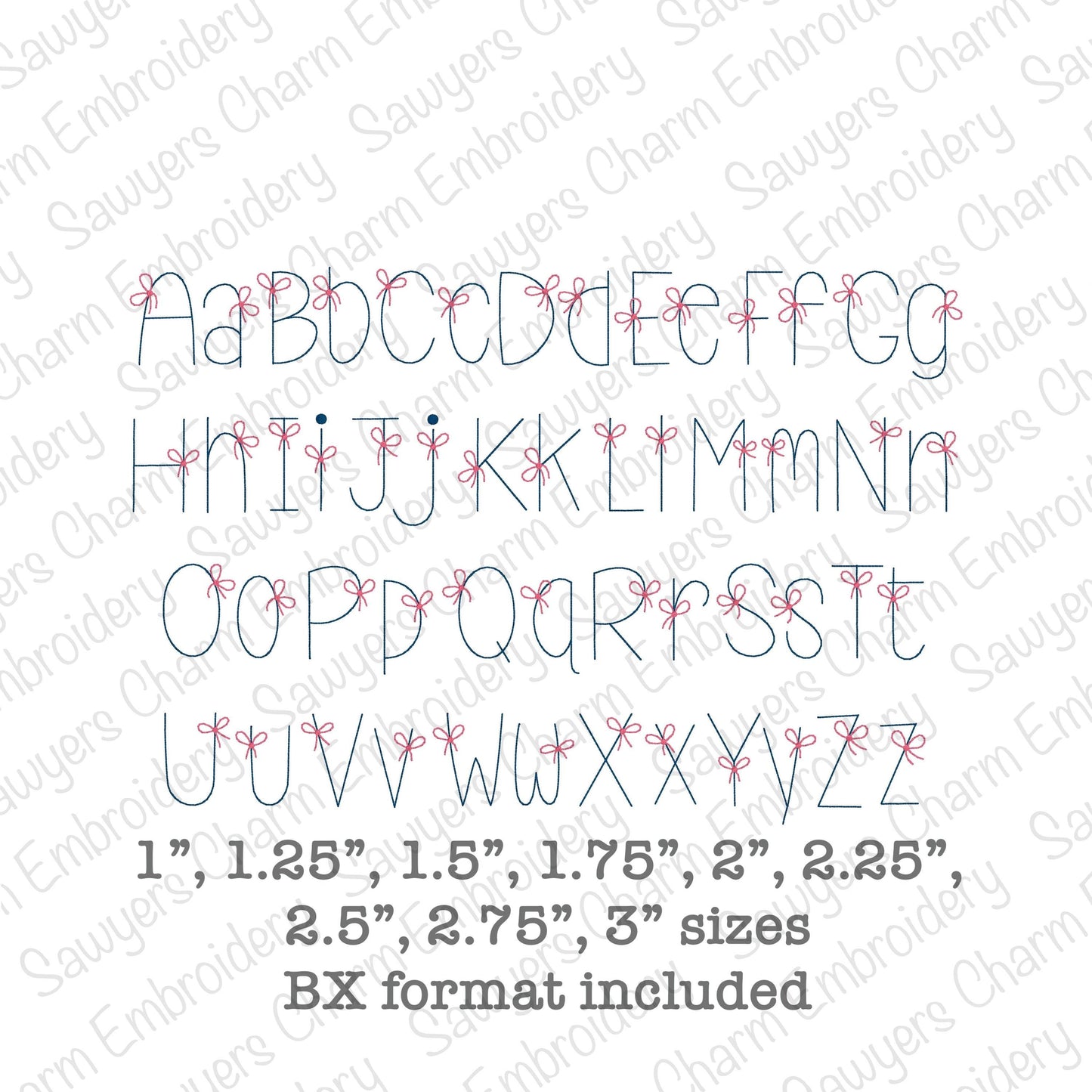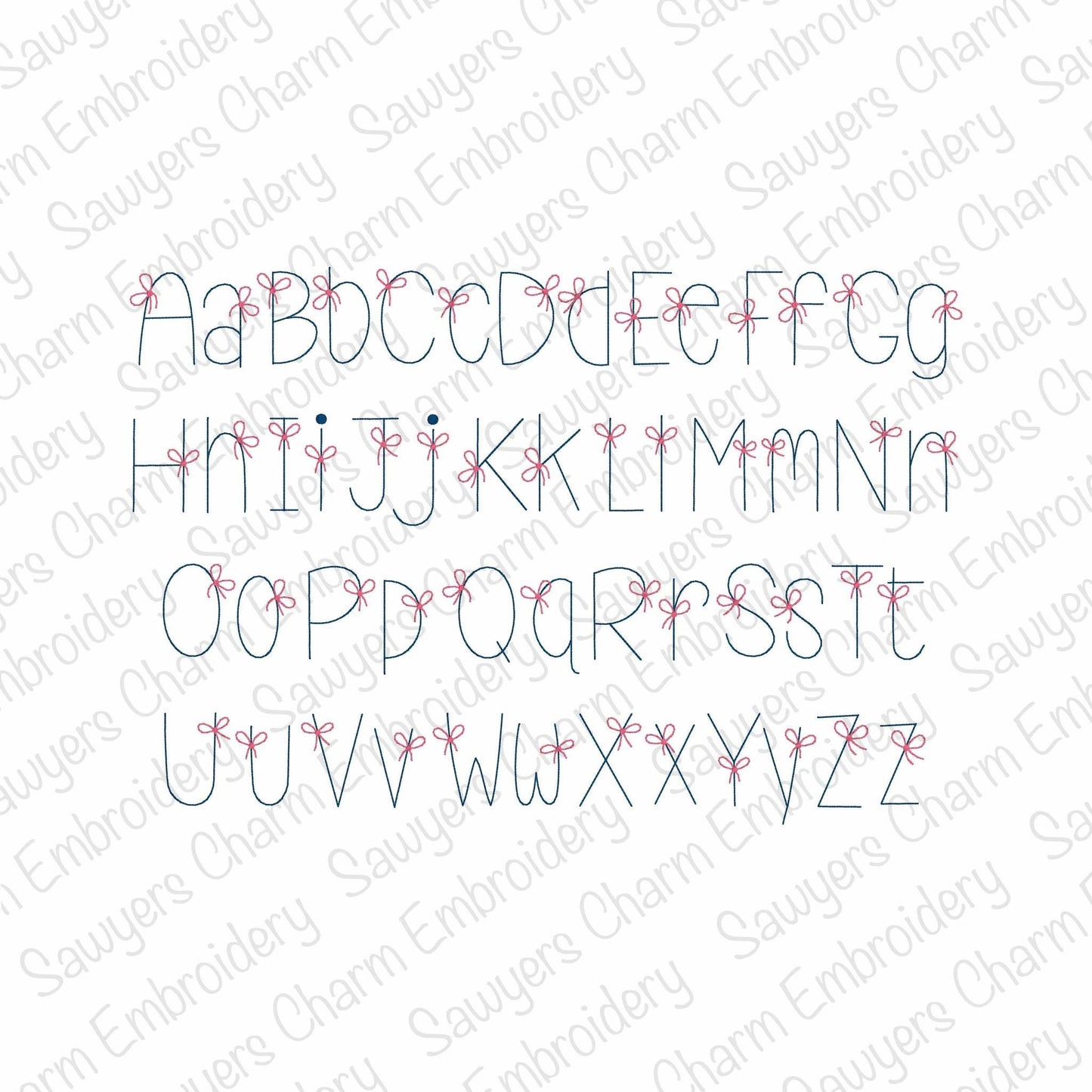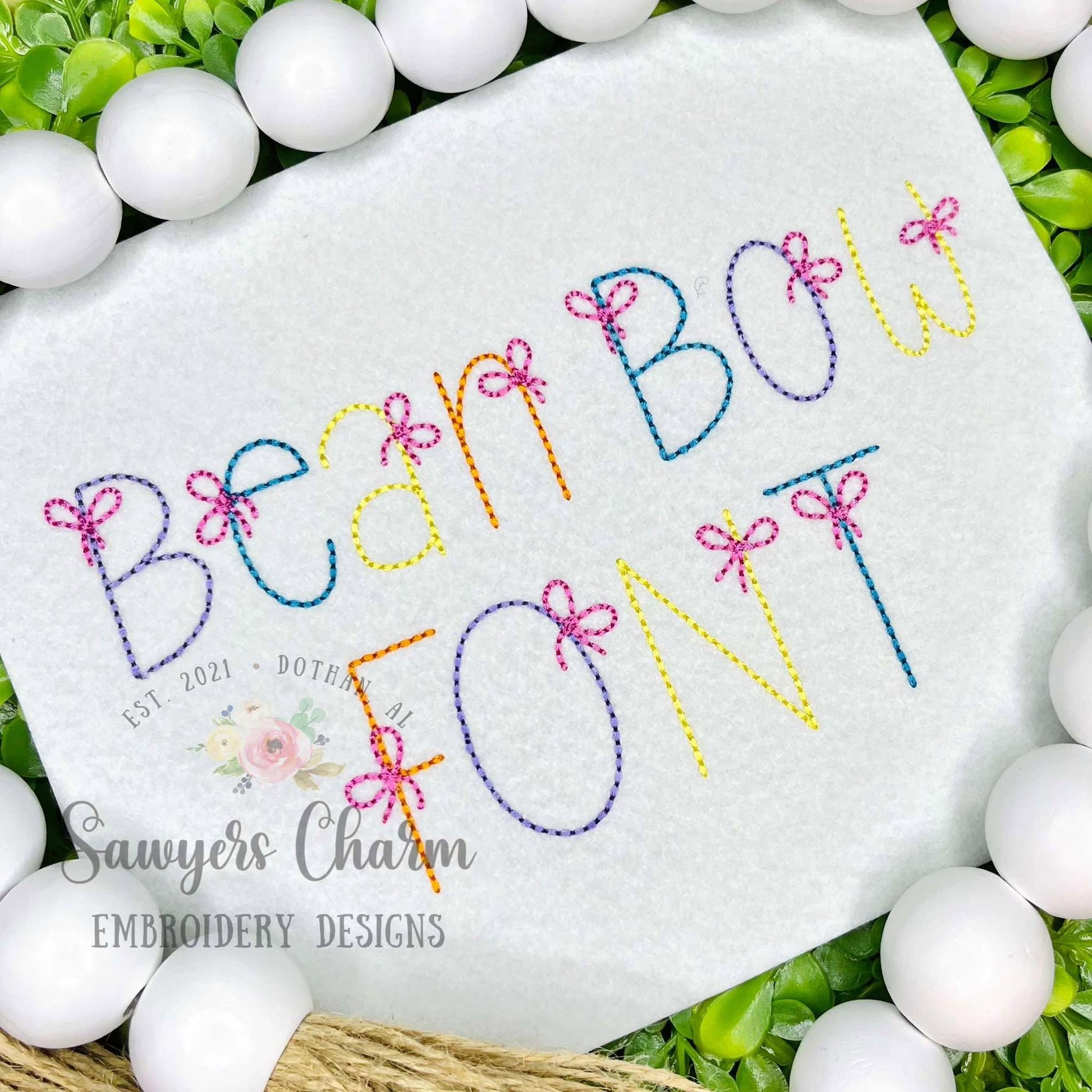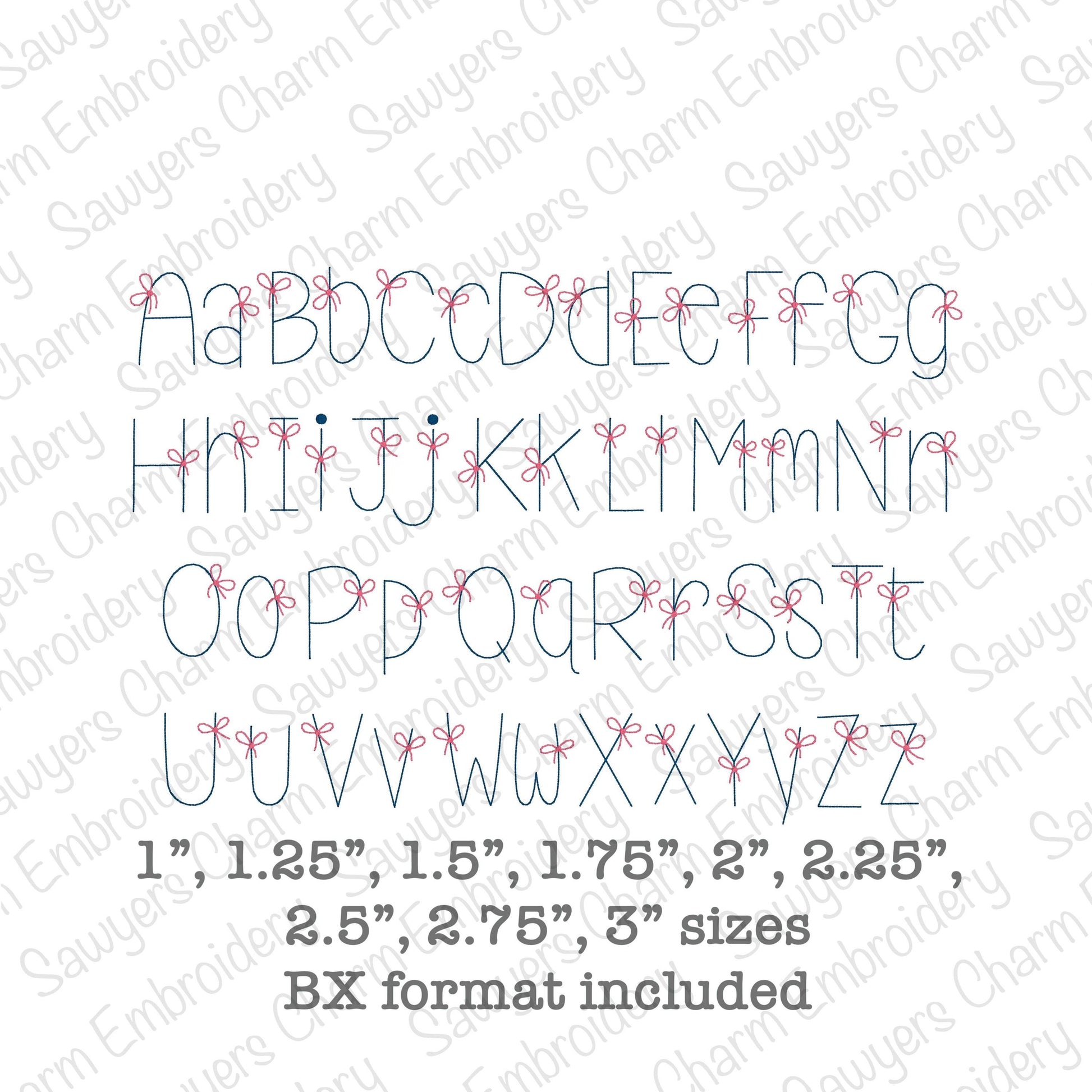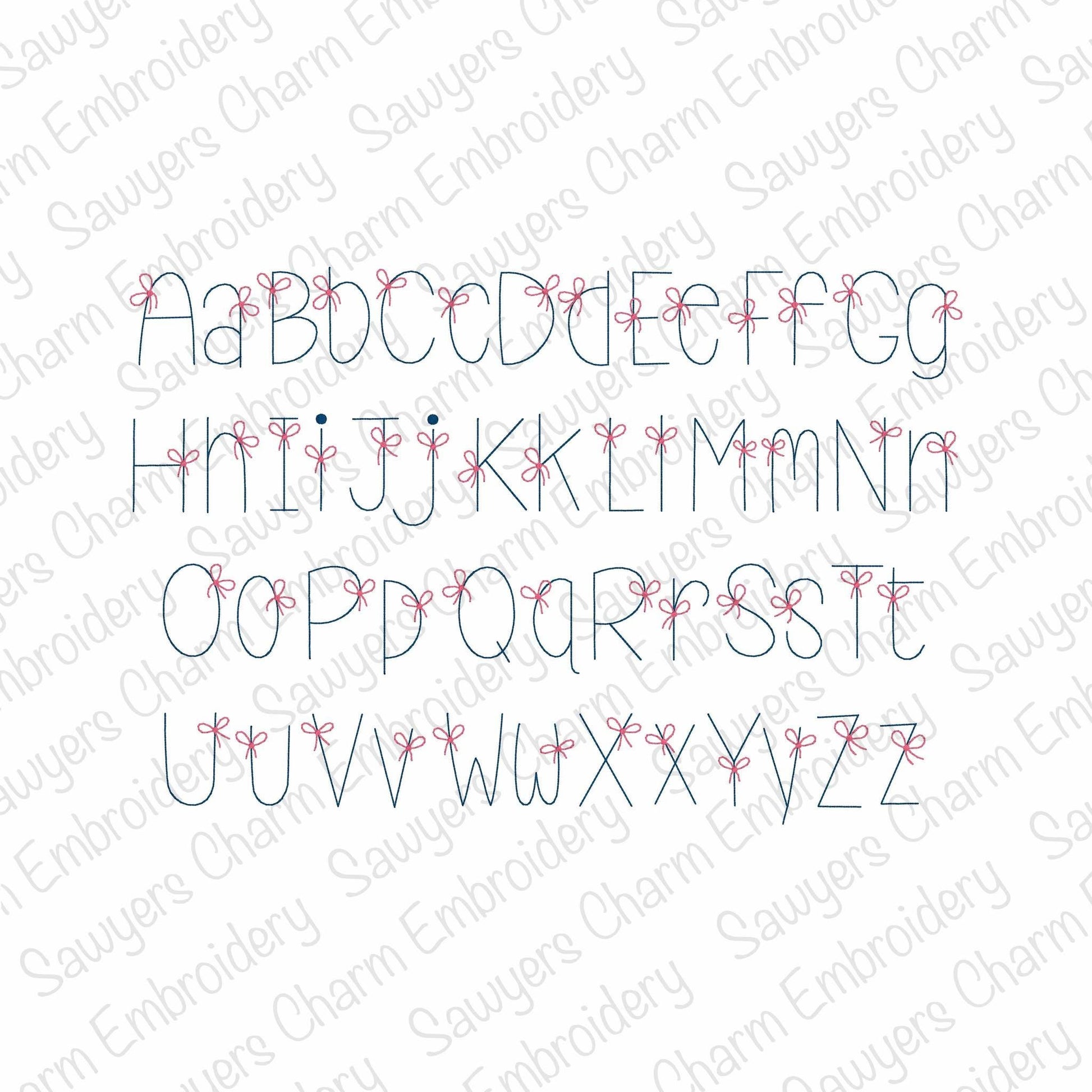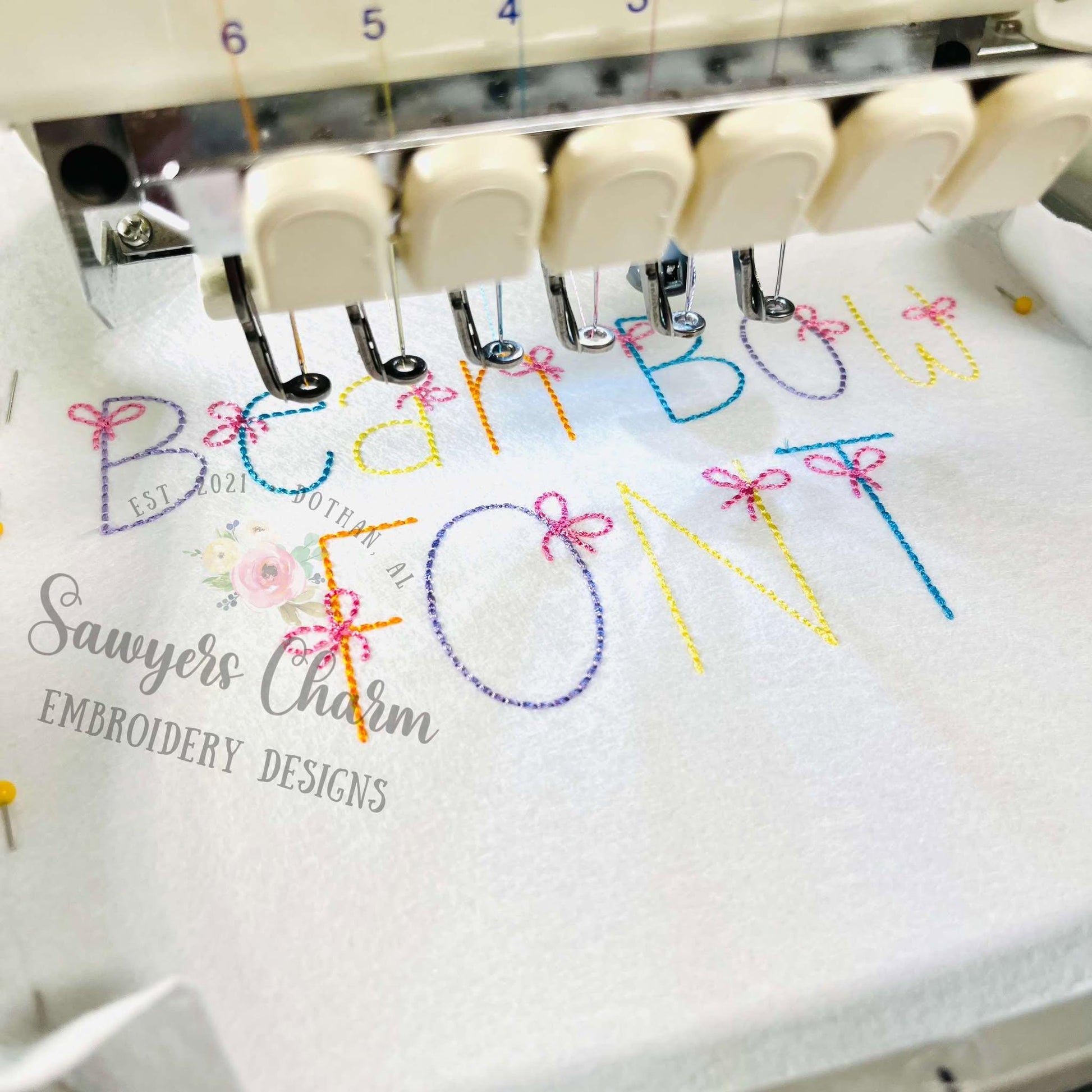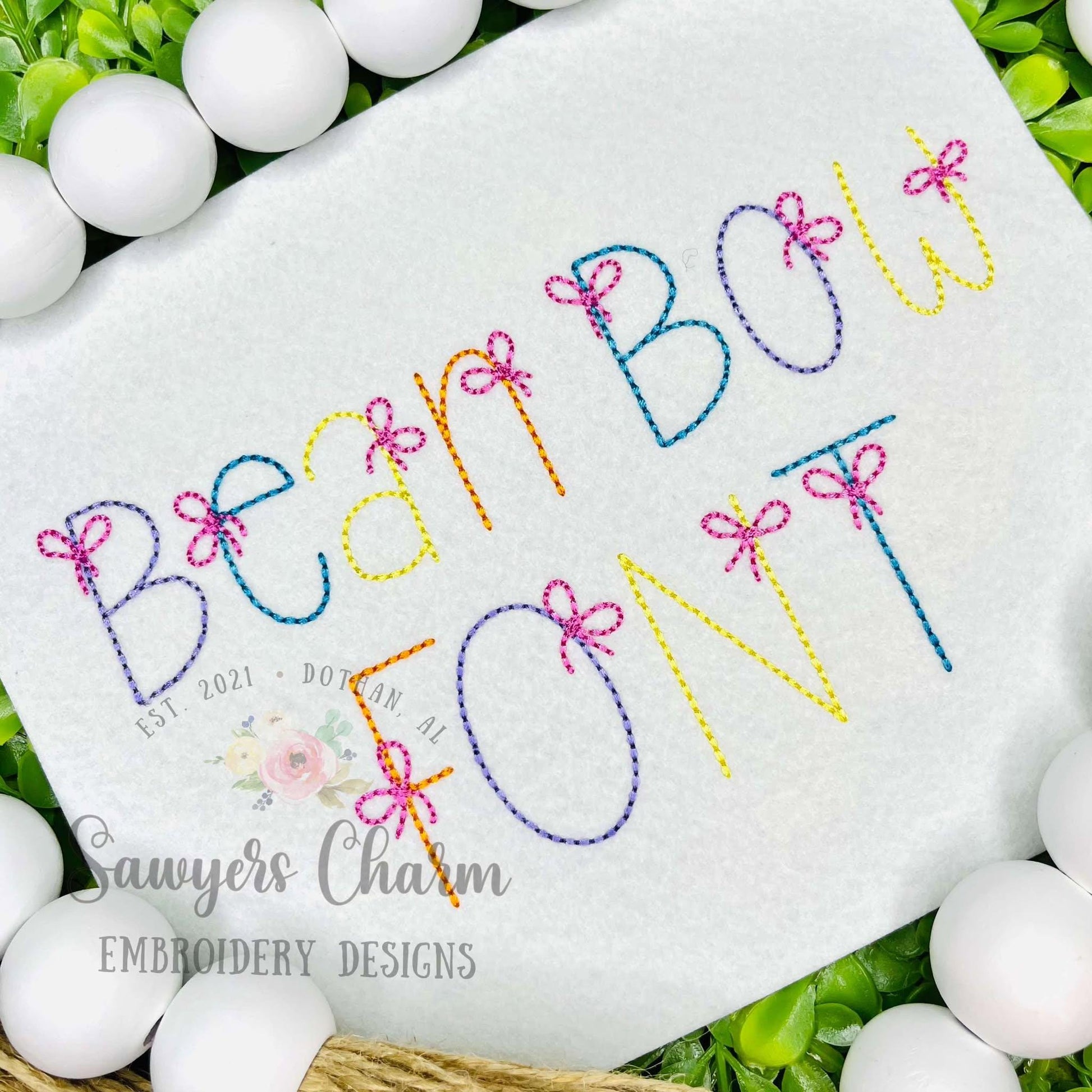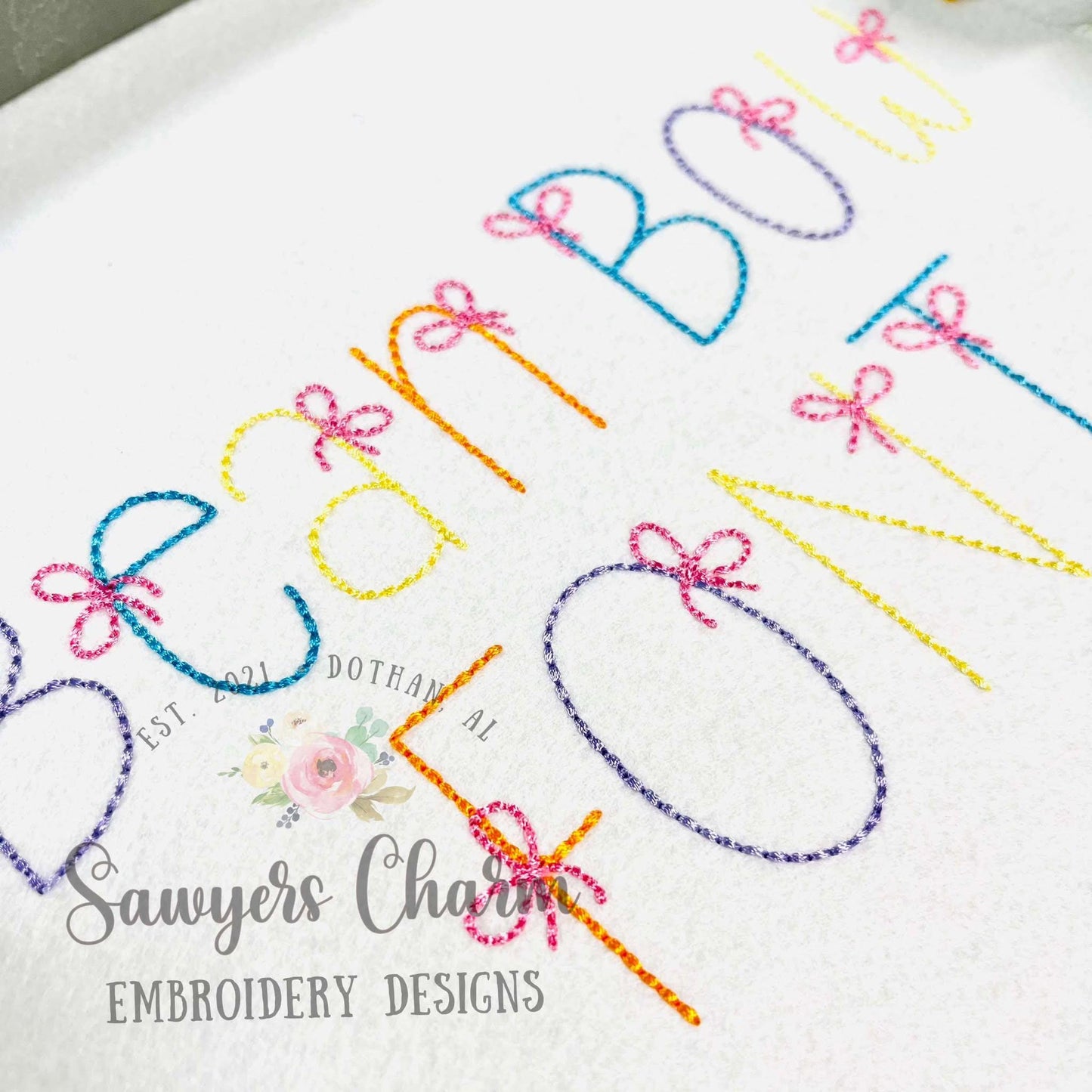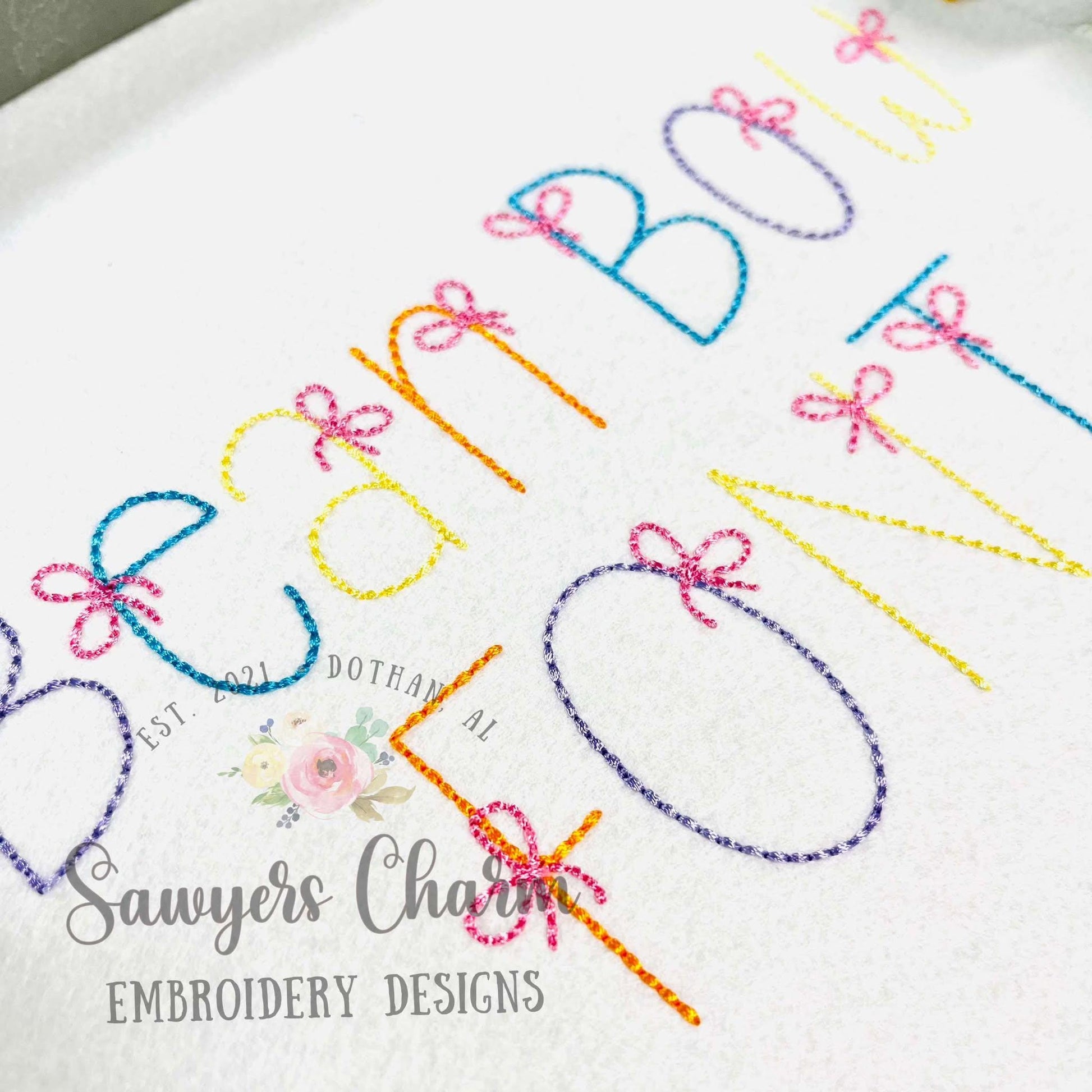
Bean Bow Bean stitch machine embroidery font, lower & uppercase letters, 9 sizes, BX included, perfect for monograms, quick stitch, coquette
This embroidery font comes in 9 sizes....1", 1.25", 1.5", 1.75", 2", 2.25", 2.5", 2.75", and 3". This is a bean stitch font with uppercase and lowercase letters. The bows can be left off so that the font can be used plain for those boys as well. :)